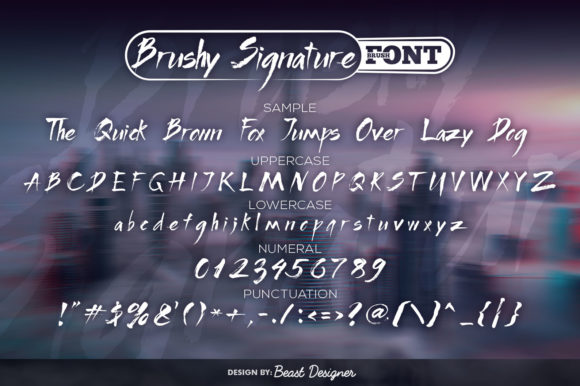
Discover the Magic of Brushy Signature Font
Remember that moment when you finally nailed the perfect shot for your latest photography project? The excitement, the thrill, the sense of accomplishment – it’s moments like these that make all the hard work worth it. But, have you ever thought about how a beautiful font can elevate your design and make it truly shine?
Enter the Brushy Signature Font, a stylish script font designed to bring your projects to life. This versatile font is perfect for photography, branding, business, Instagram stories, fashion apparel, film, and many more. With its unique, hand-drawn feel, the Brushy Signature Font adds a touch of sophistication and elegance to any design. Whether you’re a seasoned designer or just starting out, this font is sure to become a valuable addition to your toolkit.
Key Features of Brushy Signature Font
- Font Style: Brush Script, suitable for personal and creative projects, including signatures, logos, and watermarks.
- Unique Characteristics: Brushy Signature Font features a unique, hand-drawn style with subtle texture and imperfections, giving it a personal touch.
Brushy Signature Font Review
Overall, I think the Brushy Signature Font is a unique and interesting font that could work well for certain projects. Here are a few things I like about it: ✨
- It has a distinct, hand-written feel that could add character to a design.
- The font is quite legible, even at smaller font sizes.
- It’s available in a range of weights, from light to bold, which can be helpful for creating contrast and visual interest.
- The font may not be the best choice for projects that require a lot of text, as it can be slow to read and may not be suitable for body text.
- The font’s irregularities can make it difficult to pair with other fonts, which may limit its versatility.
Overall, I think the Brushy Signature Font is a fun and creative option for designers who want to add a personal touch to their projects. While it may have some limitations, it can be a great choice for titles, headings, or other design elements where a unique, handwritten feel is desired.
Tips for Getting the Most Out of the Brushy Signature Font
1. Use the font in conjunction with other creative elements, such as illustrations or graphics, to create a unique and eye-catching design.
2. Experiment with different font sizes and styles to add emphasis and visual interest to your text.
3. Use the font to create a consistent brand identity across all your marketing materials.